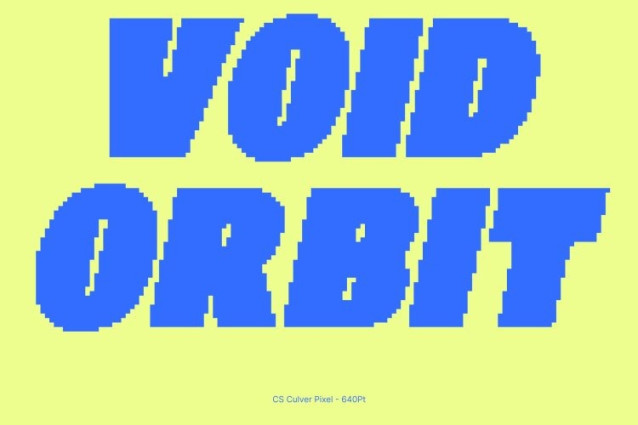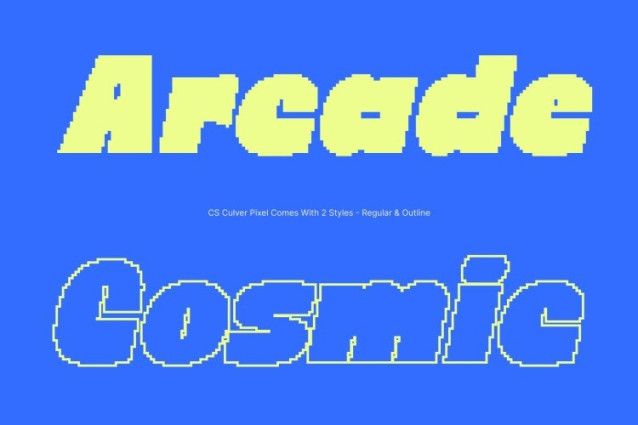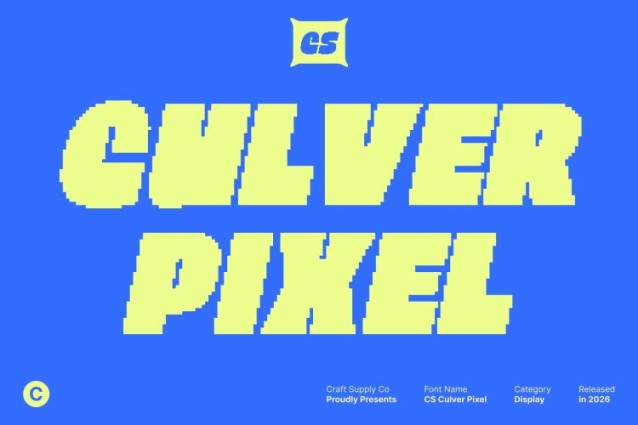
CS Culver Pixel Font This is a bold sans serif display font that blends confident structure with a retro funky spirit, enhanced by pixel detailing. Its chunky letterforms feel energetic and expressive, while the pixel construction adds an old-digital flavor inspired by classic arcade screens and early computer graphics. The result is a typeface that feels playful, bold, and unmistakably eye-catching.
Funky Retro Vibes with a Modern Digital Edge
Drawing from retro influences such as funky 70s typography and nostalgic pop culture, this font reimagines them through a modern, pixel-based lens. Clean geometry keeps the font readable and contemporary, while the pixel accents introduce a nostalgic digital twist perfect for designs that want to feel both vintage and current.
Perfect for Loud, Lively, Retro-Digital Visuals
This font shines in music posters, event promotions, packaging, gaming visuals, and creative branding that demand attention. Its bold weight and funky pixel style make it ideal for expressive layouts, playful campaigns, and designs that embrace color, rhythm, and personality.
Stylish, Memorable, and Versatile
With its strong presence and distinctive pixel charm, this font ensures your typography stands out and stays memorable. It delivers a joyful yet polished feel, making it an excellent choice for designers seeking bold impact, retro funk, and modern digital character in one powerful font.